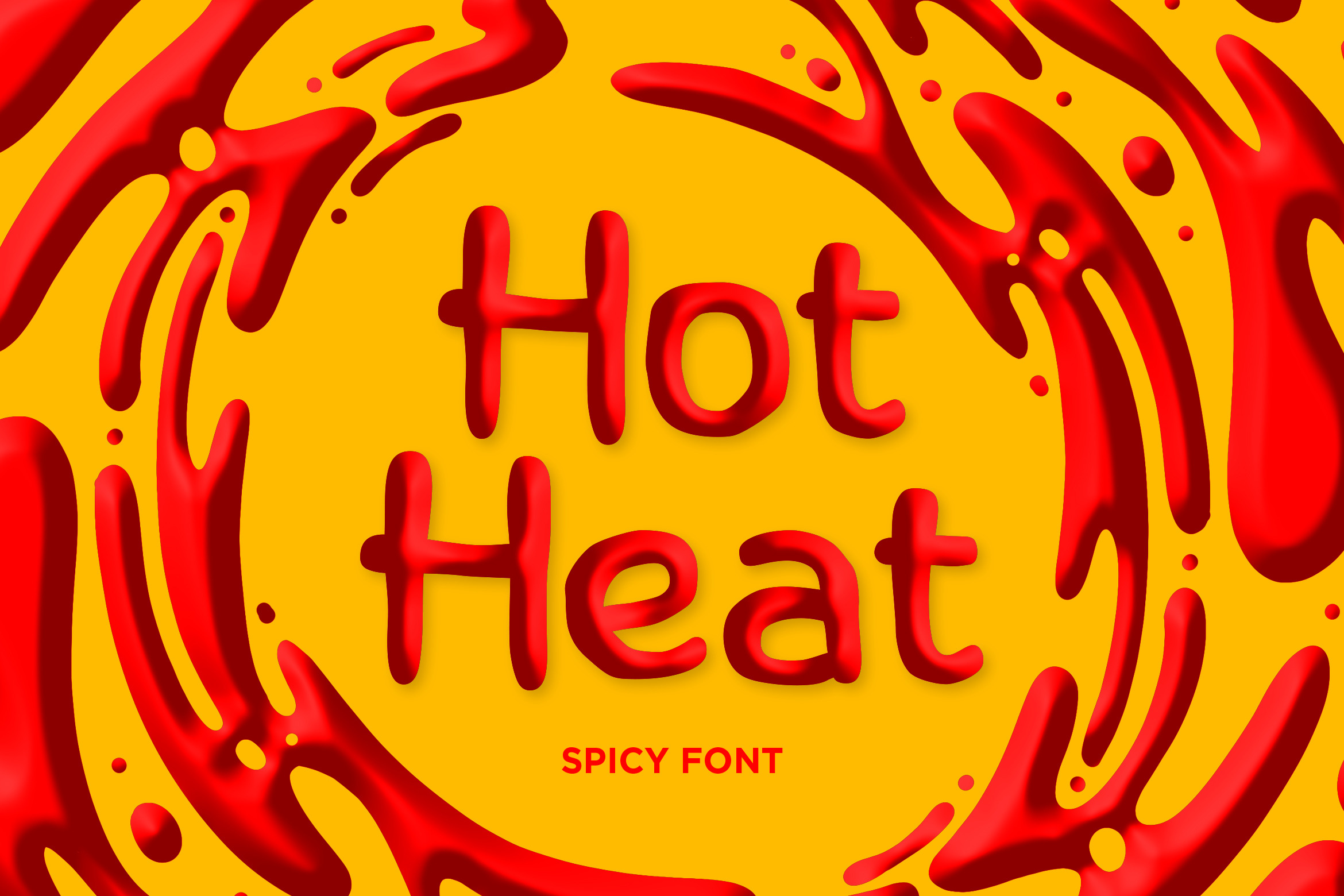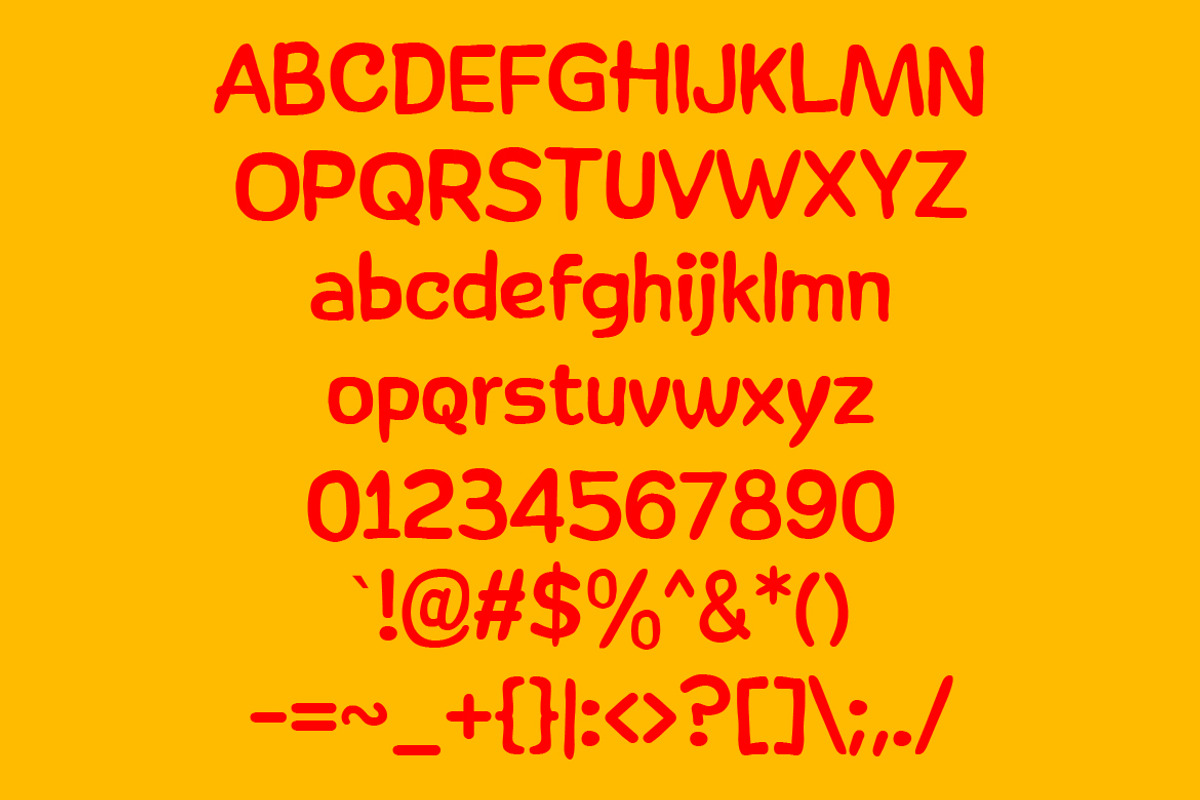
Hot Heat - Spicy Chili Fonts
Meet the spiciest font ever, Hot Heat. Inspired by the chili sauce drip and the shape of chili itself. Perfectly fit for your spicy food and beverage design, Halloween concept, drip wet look visual, I know you have some in mind when you see it.